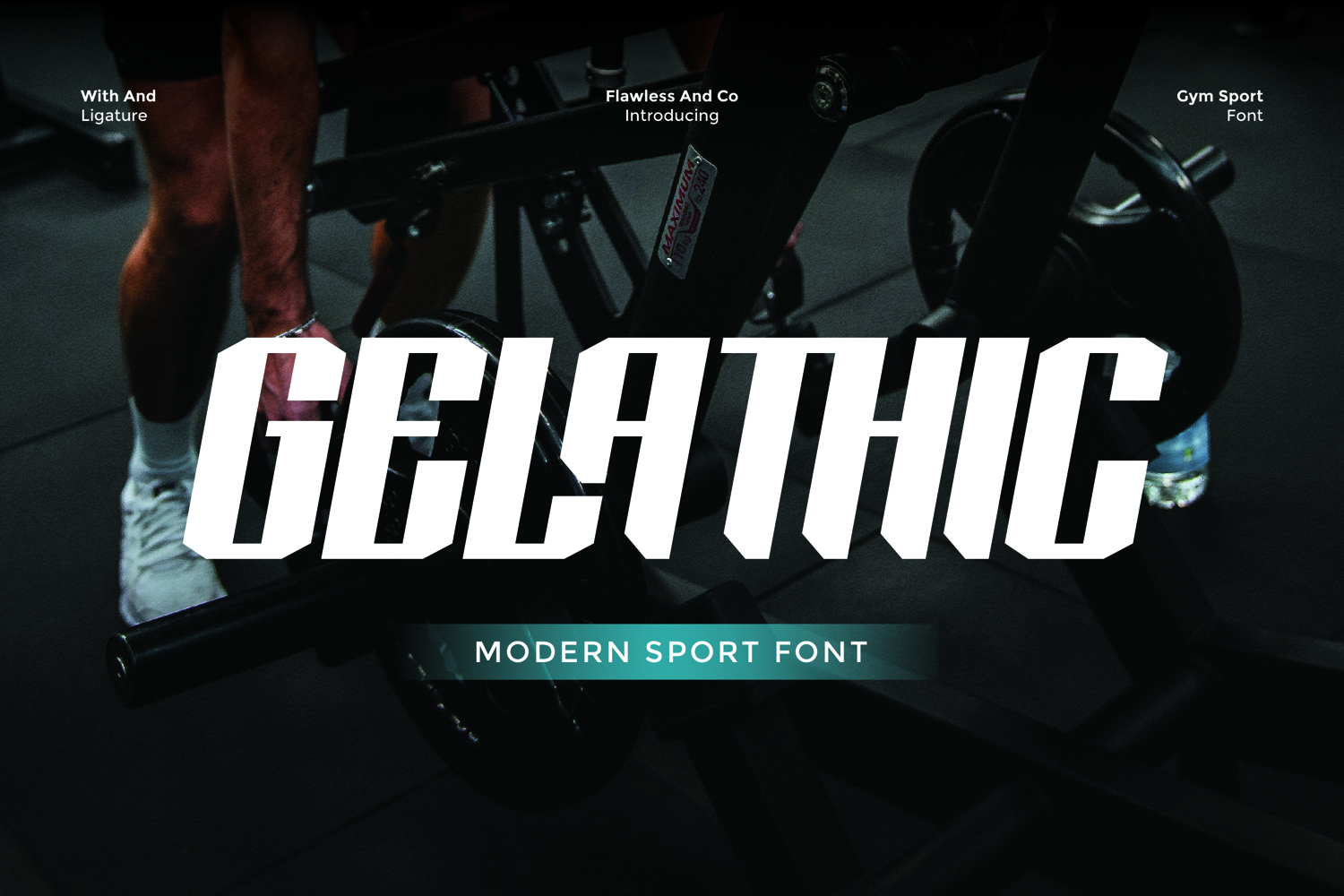
Gelathic
Gelathic - Modern Sport Font
Gelathic a modern sport font built to dominate. Bold, strong, and sharp-edged, this font channels power and precision in every letter. With striking angular forms and aggressive attitude, Gelathic is made for gym branding, energy drink labels, activewear logos, and fitness campaigns that push limits. Gelathic brings a fresh take on athletic typography – complete with ligatures, clean alignment, and unstoppable visual energy. Whether you're designing for strength, speed, or motivation, this font delivers impact at every turn.
• Alternates & Ligatures
Who Should Use Gelathic?
Gelathic is the perfect choice for designers, brands, and creatives who want to bring bold energy and athletic strength into their visuals. Whether you're crafting visuals for a fitness brand, gym identity, sports product, or streetwear label, Gelathic delivers the punch and precision needed to stand out. If your project demands powerful typography, clean structure, and a modern, sporty feel — Gelathic is made for you.
A Must-Have Font for "Brand & Logo Sports" Creators and Designers
Gelathic isn’t just a font — it’s a powerhouse tool for designers who want to elevate their sports branding and logo work with bold energy, confident style, and dynamic appeal. Whether you're designing for a fitness brand, a sportswear label, or a competition-ready team identity, Gelathic gives your work the strength and modern edge it needs to dominate.
Why Choose Gelathic for Brand and Logo Projects?
Gelathic stands out with its bold presence, clean structure, and athletic vibe — making it an ideal choice for sports-focused branding. Whether you're building a powerful team identity, crafting merchandise for a gym or fitness label, or designing a bold logo that demands attention, Gelathic delivers both impact and versatility. Its strong letterforms and energetic flow are designed to grab attention and leave a lasting impression across digital and print platforms.